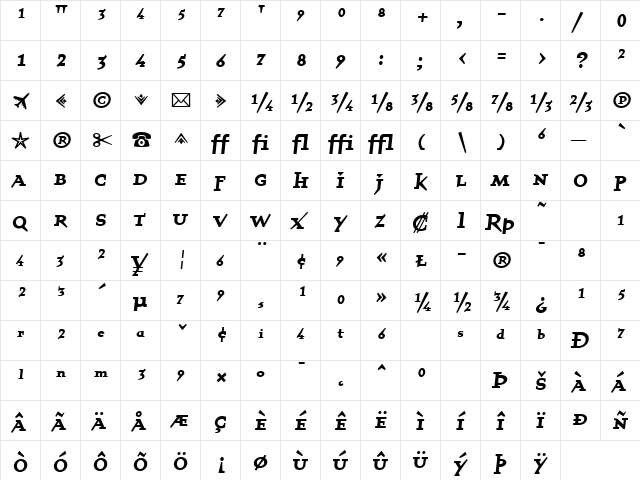
QuartetFractionsBold Bold Font Preview
QuartetFractionsBold Bold
QuartetFractionsBold Bold Font Details
Design Context for QuartetFractionsBold Typeface
QuartetFractionsBold is a composed and adaptable typeface that performs quietly and consistently across a wide range of design contexts. Its bold stroke weight gives it real presence on the page.